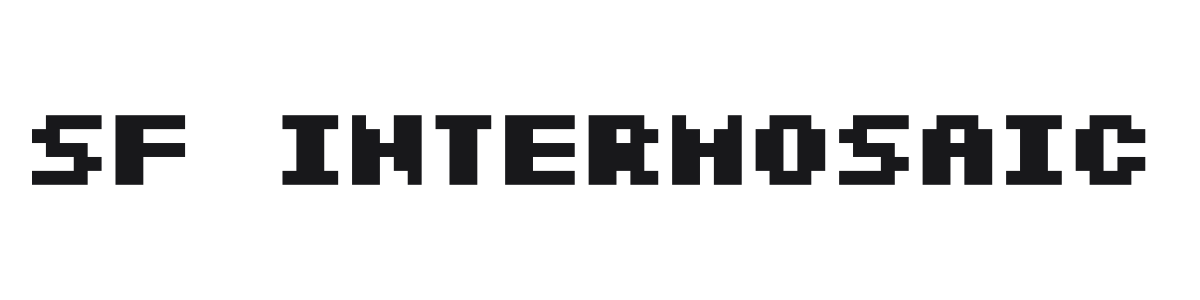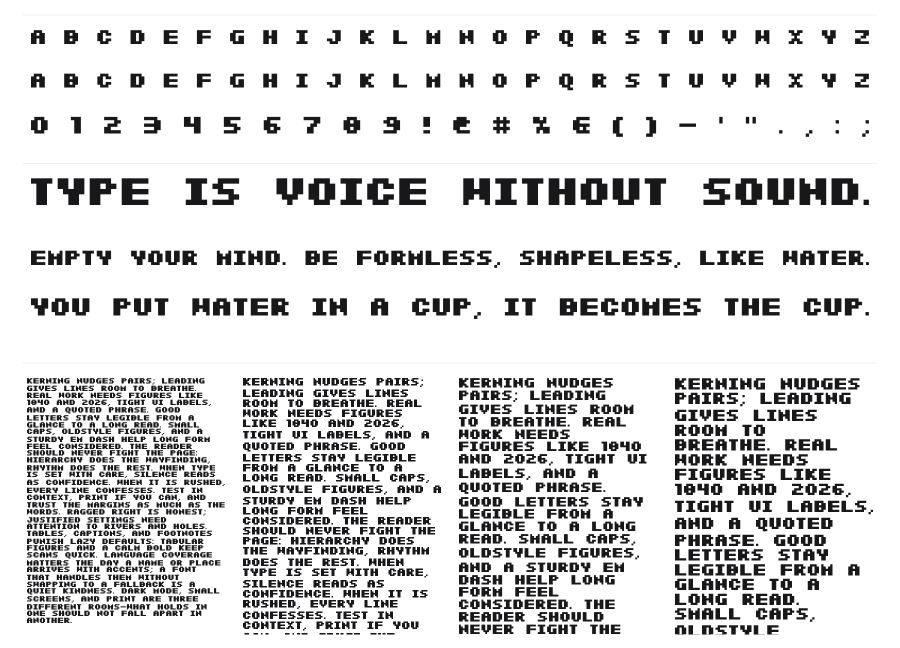
SF Intermosaic
SF Intermosaic is a bold bitmap typeface built entirely from square pixel blocks, directly evoking the character displays of early home computers and arcade machines. Every stroke is constructed on a strict grid with no curves, no contrast, and no compromise. It reads instantly as 8-bit nostalgia, which makes it effective for gaming projects, retro branding, and anything that needs that particular flavor of digital past.